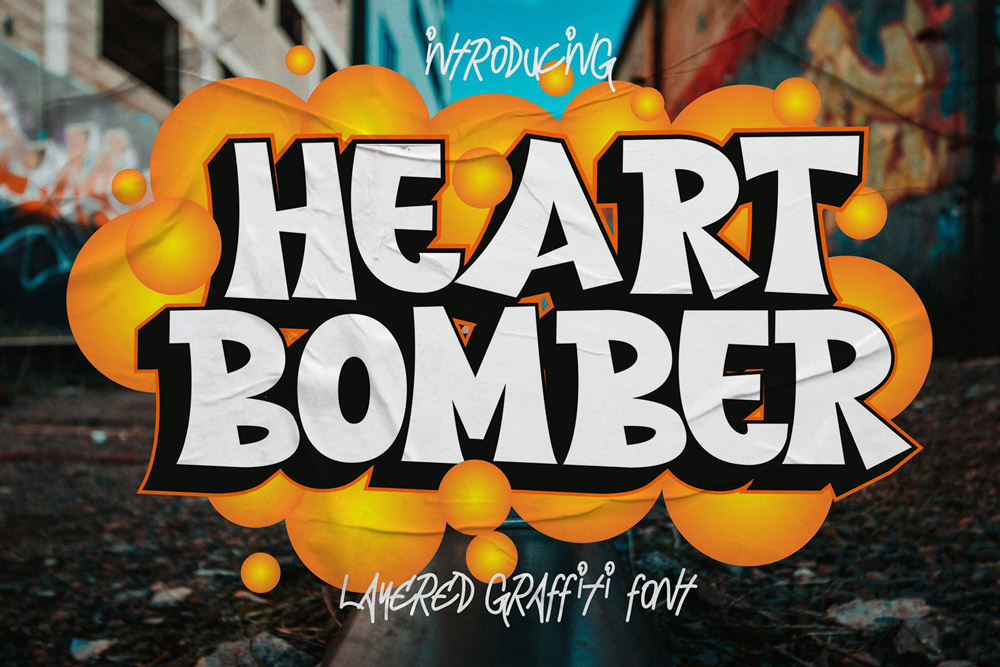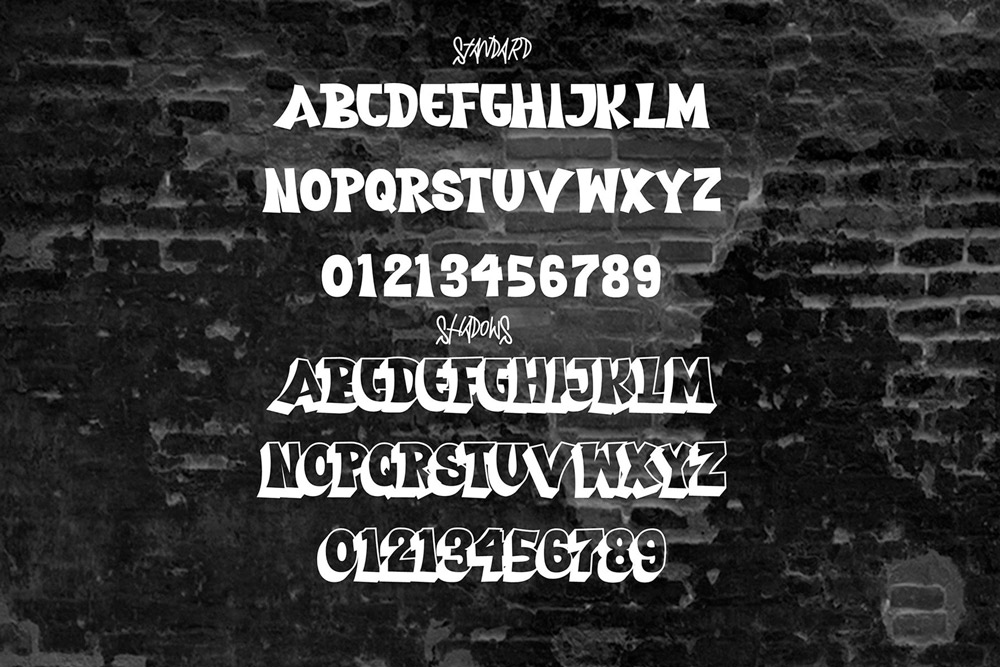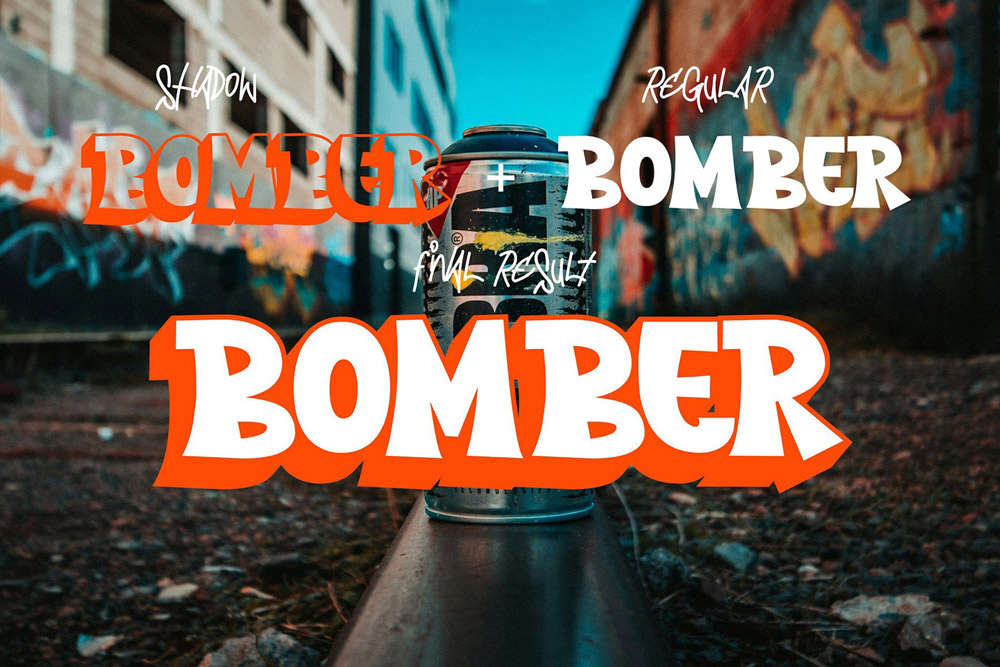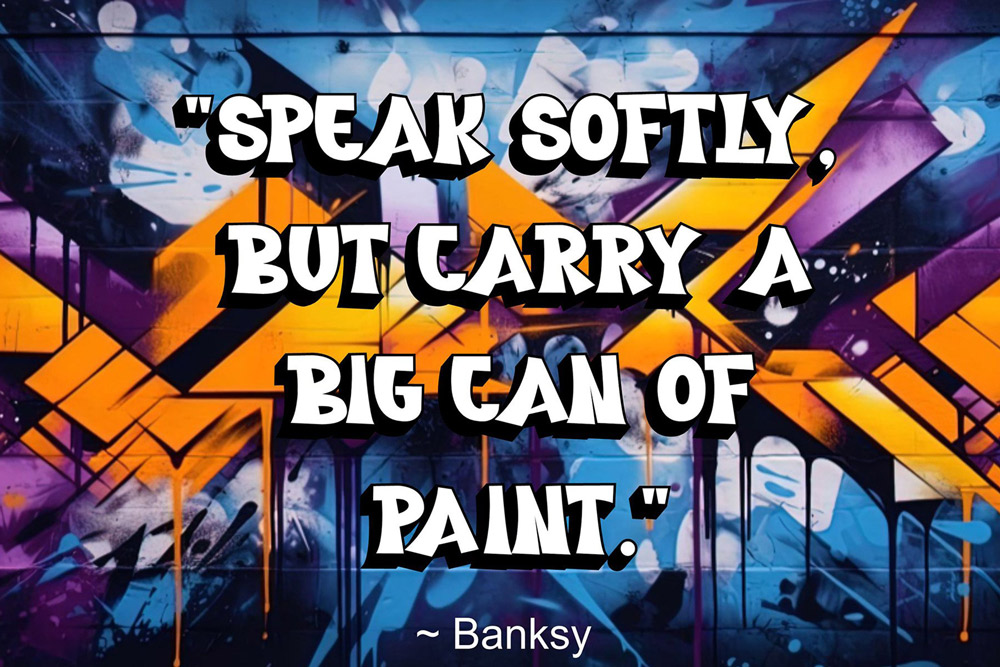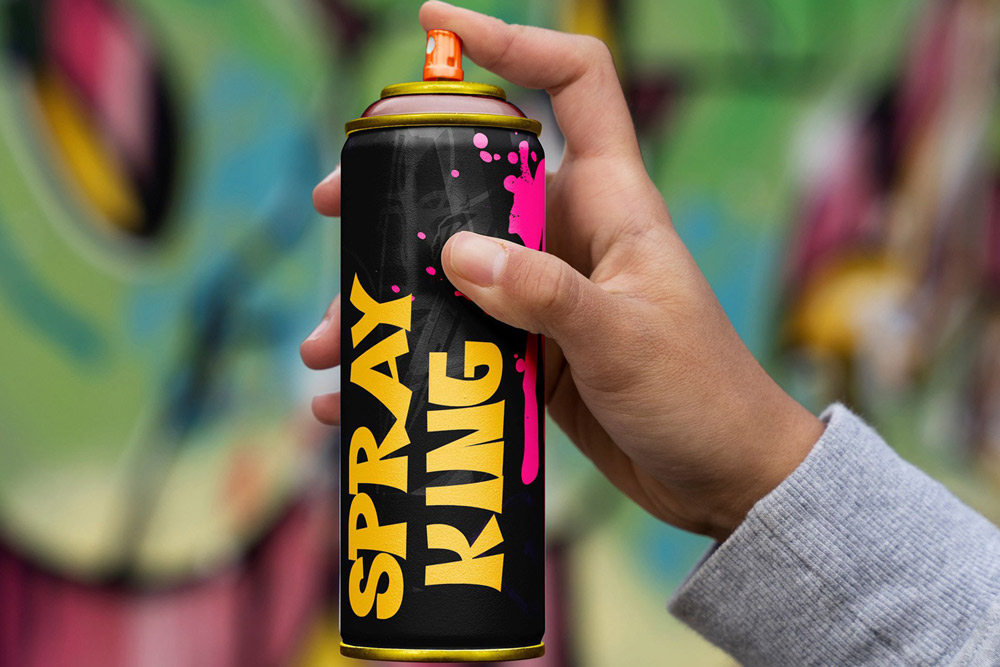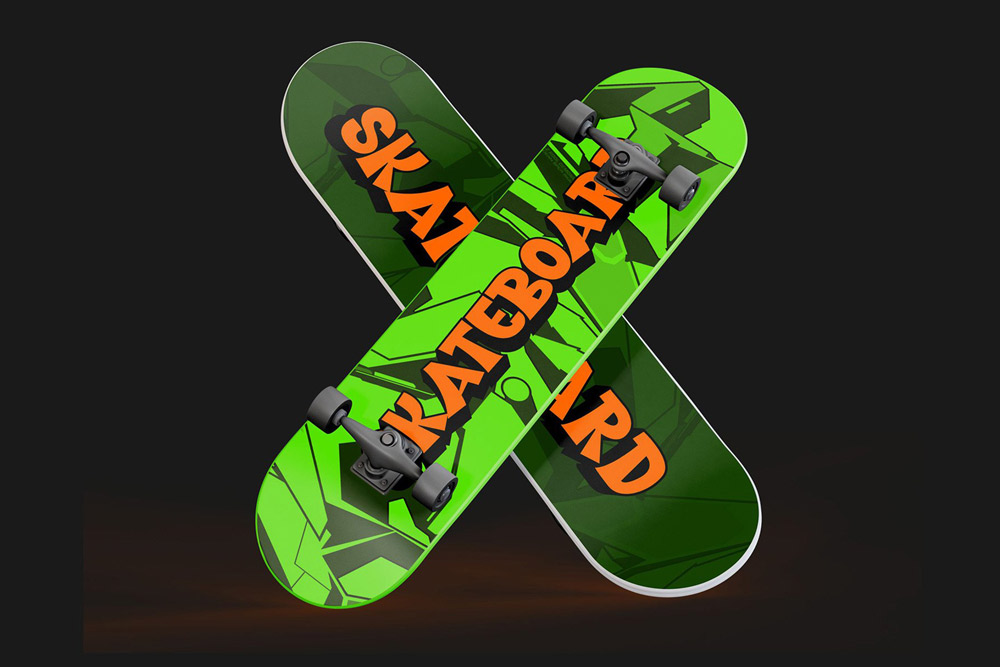
Heart Bomber Graffiti Font – Urban Shadow Style Power
Heart Bomber is a bold and expressive graffiti font that captures the raw heartbeat of urban street culture. Designed for creators who want to stand out, this shadow graffiti font combines energetic lettering with a powerful shadow layer that adds depth, impact, and attitude. Every character in this graffiti typeface reflects rebellion, love, and street identity—making it perfect for modern designers who want their visuals to explode with personality.
Whether you’re working on streetwear branding, poster design, album covers, or social media graphics, Heart Bomber graffiti font delivers a strong visual punch. Its layered shadow effect enhances readability while maintaining that authentic handstyle feel that defines true urban graffiti fonts.
Explosive Urban Energy in Every Letter
This shadow graffiti font is built with attitude. Inspired by real street tagging and bombing styles, Heart Bomber merges rough strokes with smooth flow, creating a balanced yet chaotic aesthetic. The shadow layer gives your typography instant dimension—making it perfect for designs that need to pop both digitally and in print.
With its dynamic forms and bold shapes, this graffiti display font is ideal for projects that demand attention. From edgy branding to underground zines, Heart Bomber font transforms ordinary text into a statement of identity and rebellion.
Designed for Maximum Visual Impact
Every letter in Heart Bomber graffiti font is crafted to feel alive. The shadows are not just decorative—they amplify the depth and give your text a 3D-like presence. This makes it one of the most versatile graffiti fonts with shadow available for designers who want both style and readability.
The combination of raw strokes and structured layering ensures that your typography remains clear even at larger scales. Whether you’re designing murals, merchandise, or digital content, this urban graffiti font adapts effortlessly.
Complete Character Set & Features
Heart Bomber – Shadowed Graffiti Font comes fully equipped to support your creative needs. This professional graffiti font includes everything required to create bold, expressive typography.
✔ Uppercase Characters
Strong, bold uppercase letters designed with authentic graffiti font style to maximize visual impact.
✔ Multilingual Support
Supports a wide range of languages, making this graffiti typeface suitable for global projects and international branding.
✔ Numbers & Punctuation
Complete set of numbers and punctuation ensures flexibility for all types of design—from posters to branding systems.
• Bold and expressive graffiti font design
• Unique shadow layer for depth and dimension
• Authentic street-style lettering
• Perfect for branding, posters, apparel, and digital media
• High readability for a display graffiti font
• Versatile usage across print and digital platforms
Why Designers Love Heart Bomber
Designers love Heart Bomber graffiti font because it delivers both aesthetic power and functional flexibility. Unlike generic fonts, this urban graffiti font brings personality into every project. The shadow layer gives designers an easy way to create depth without extra effort—saving time while elevating quality.
This graffiti display font is especially محبوب among streetwear brands, music artists, and digital creators who want a bold identity. It works seamlessly in high-energy visuals and stands strong even in minimal compositions.
Another reason designers choose Heart Bomber shadow font is its balance between chaos and control. While it keeps the raw feel of street art, it remains readable and professional—making it perfect for commercial use.
Perfect For
• Streetwear branding
• Graffiti posters and flyers
• Album covers and music visuals
• YouTube thumbnails & social media
• Logo design with urban style
• Merchandise and apparel design
If you’re searching for a graffiti font with shadow effect that stands out, Heart Bomber is the perfect choice.
This pairing creates a contrast between structured shadow typography and raw dripping styles—perfect for layered compositions and branding systems using graffiti font combinations.